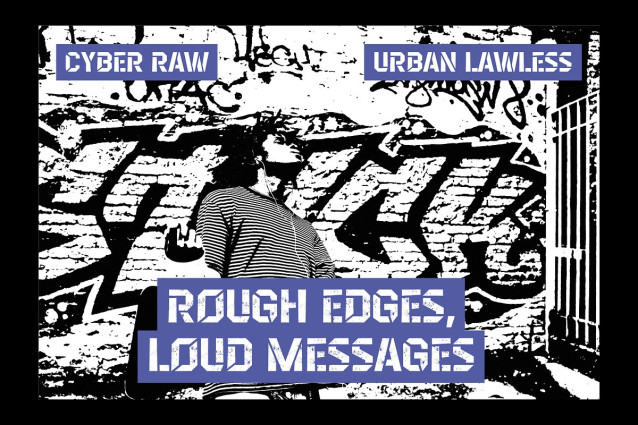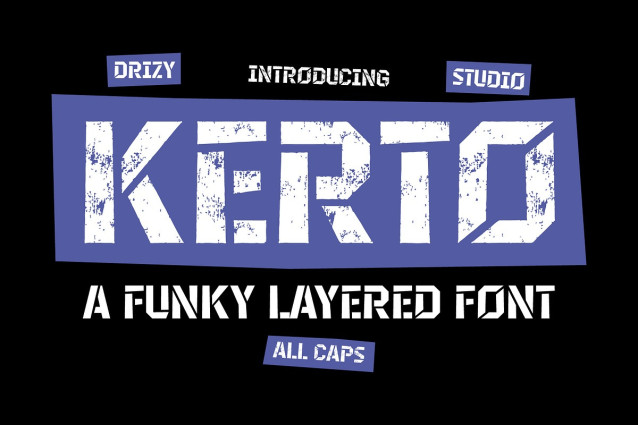
Kerto Font
Kerto Font is a bold and playful layered font inspired by urban stencil graffiti art. With its funky shapes and edgy cutouts, Kerto brings a rebellious street vibe to your designs. Perfect for posters, album covers, apparel, and creative branding, this font lets you layer colors and textures for a raw, eye-catching look. Make your message pop with Kerto — where funky meets street art in a bold, layered style!